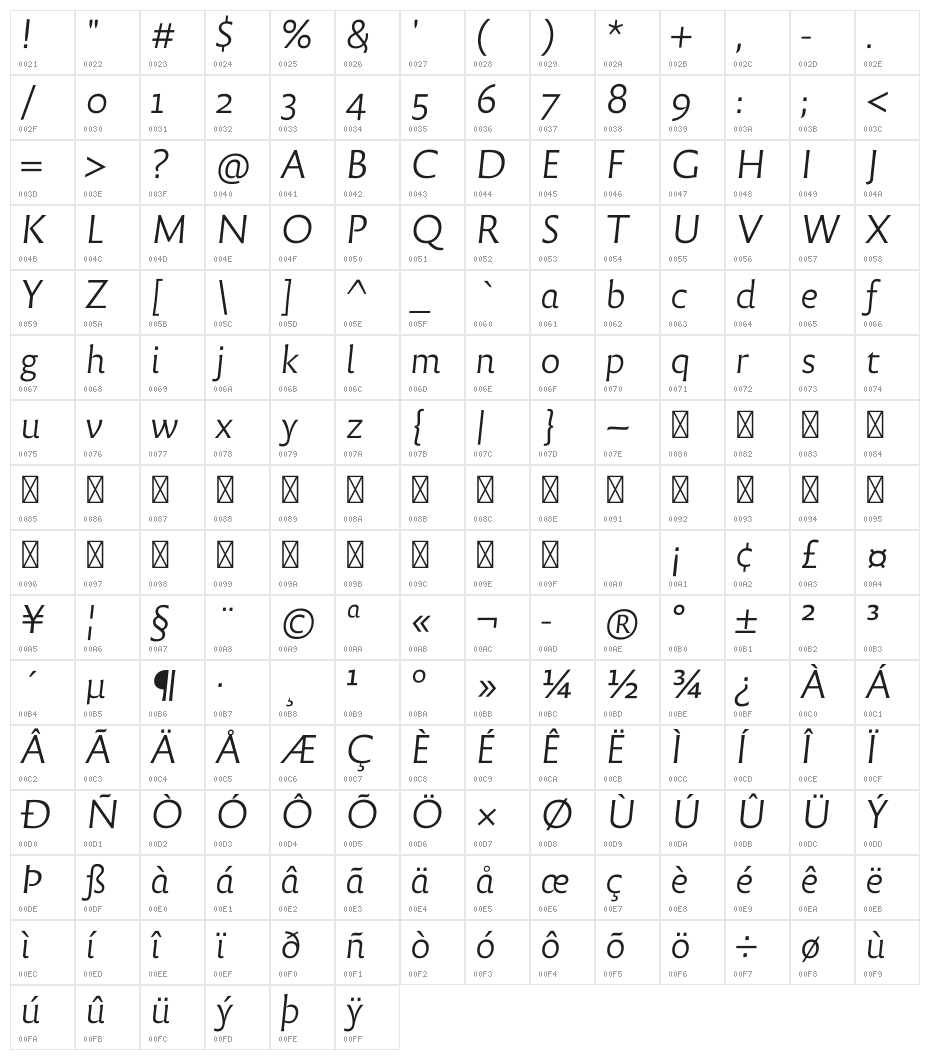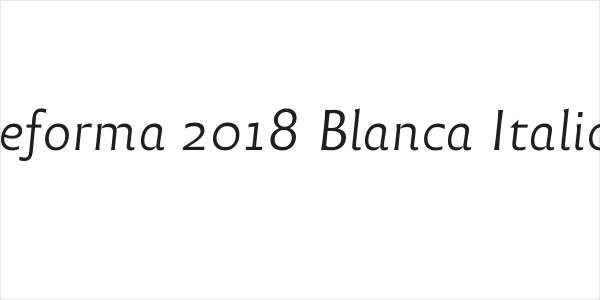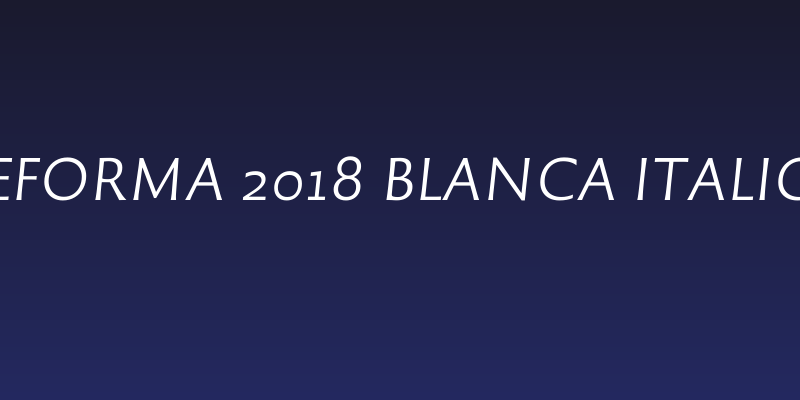
Reforma 2018 Blanca Italica Font
Reforma 2018 Blanca Italica Description
This font features a modern and elegant design with a slight italic slant, giving it a dynamic and sophisticated appearance. The characters are well-balanced with a clean, smooth flow, making it suitable for both digital and print media. The uppercase letters are tall and slightly narrow, while the lowercase letters maintain a consistent height, contributing to a harmonious look. The numerals are distinct and easy to read, with a subtle curvature that complements the overall style. Special characters are crafted with precision, ensuring clarity and legibility. This font's design is versatile, making it ideal for a variety of applications.
Proposed ProjectsIdeal for branding, editorial design, advertising, and web design projects.